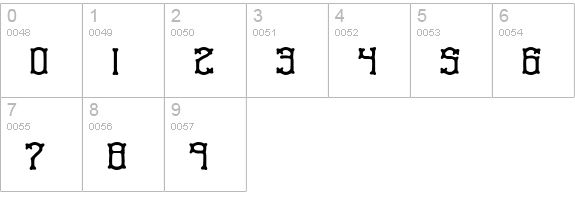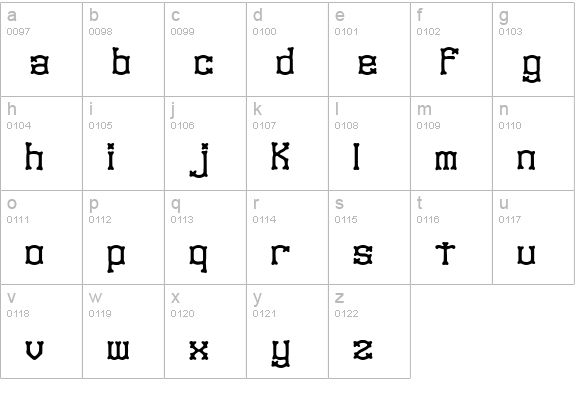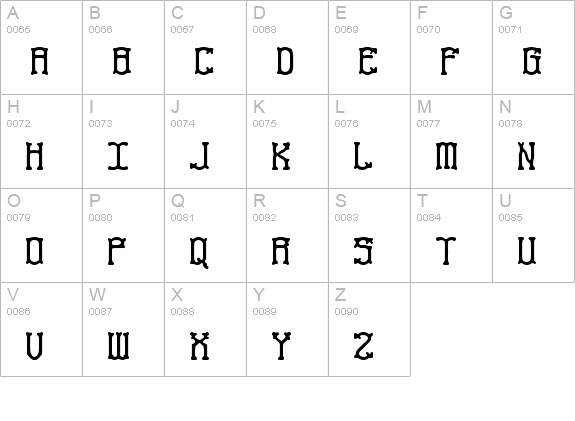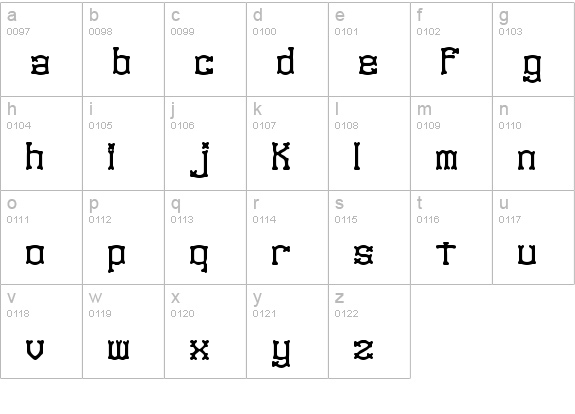
Naughts BRK Font Details
Naughts BRK font is a bold and modern typeface that exudes confidence and sophistication. With its unique design featuring sharp edges and clean lines, this font is perfect for making a statement in various design projects. Whether you're creating a sleek logo, eye-catching headlines, or stylish branding materials, Naughts BRK font will elevate your designs to the next level. Best of all, Naughts BRK font is available for free download at FontsMarket.com. This means you can easily access this versatile font and use it in your personal or commercial projects without any restrictions. Don't miss out on the opportunity to add Naughts BRK font to your font collection and enhance your design work with its striking and impactful aesthetic. Download it today and let your creativity shine with this exceptional typeface.